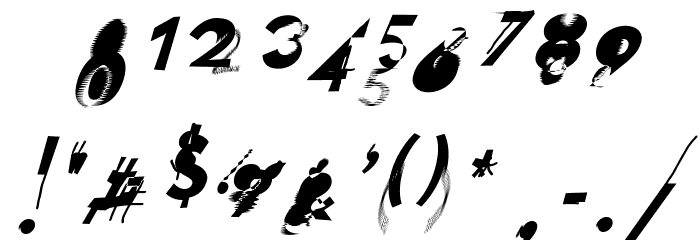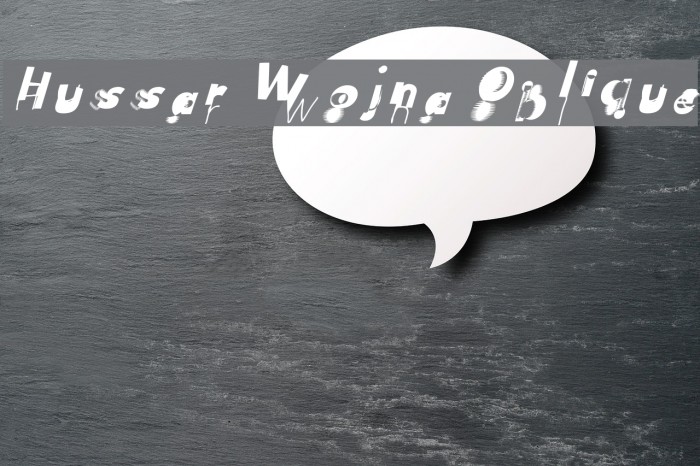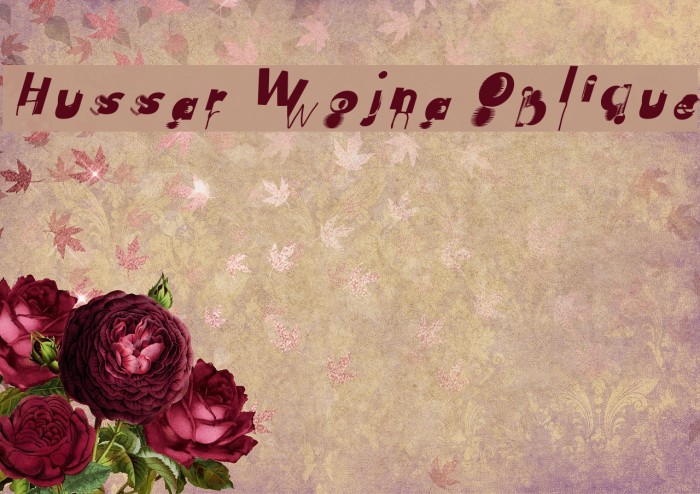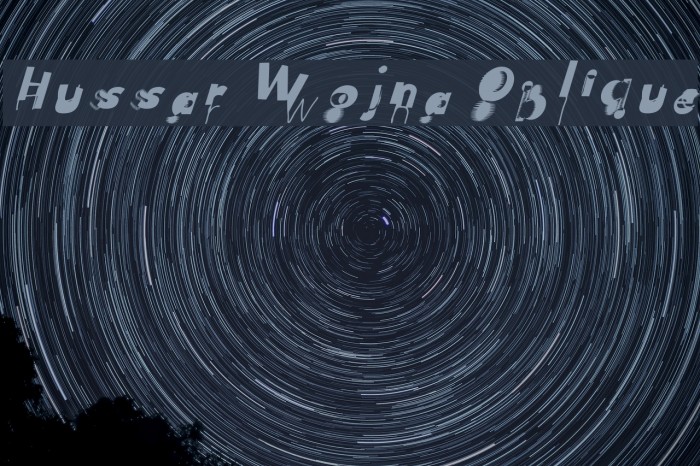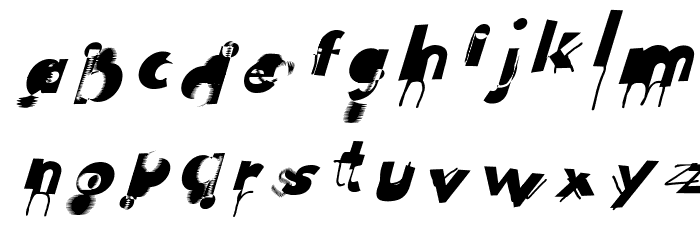
Hussar Wojna Oblique Font
This font features a dynamic and energetic style with a distinct oblique slant, giving it a sense of motion and urgency. The characters are bold and display a unique blend of sharp edges and smooth curves, creating a visually striking appearance. The font incorporates a high contrast between thick and thin strokes, enhancing its dramatic effect. The letterforms are slightly condensed, contributing to a compact and impactful look. This font's design includes a mix of solid fills and textured elements, adding depth and interest to the overall aesthetic.
A bold, oblique font with high contrast and dynamic, textured elements.
• Proposed Projects: Ideal for posters, album covers, and branding projects that require a bold, energetic look.
• Category: Decorative/Display
• Bold: Yes
• Italic: Yes
• Weight: Bold
• Width: Condensed
• Character Spacing: Normal
• Contrast: High
• Overall Style: Modern
• Use Case: Headlines, Logos